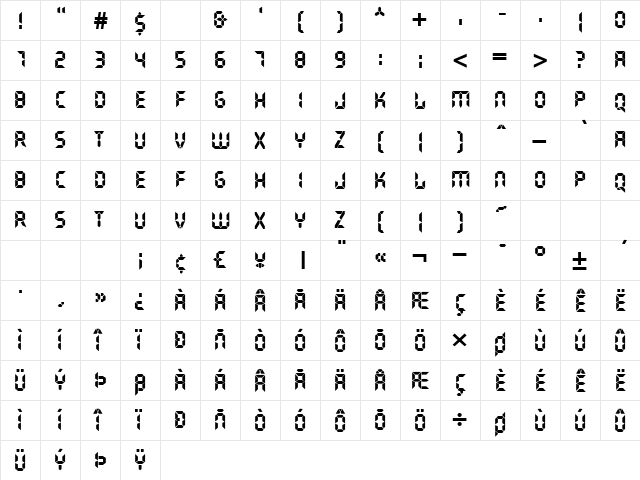
LiquidCrystal Normal
Design Context for LiquidCrystal Typeface
LiquidCrystal is a composed and adaptable typeface that performs quietly and consistently across a wide range of design contexts.
Pro Tip: Pair LiquidCrystal with a font of contrasting weight or personality to build a more expressive typographic hierarchy.